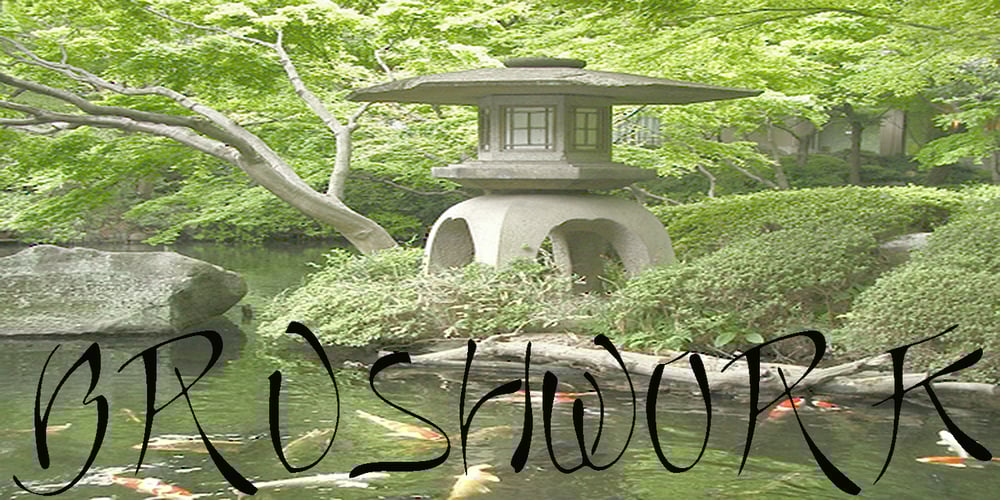
Brushwork Font Family was designed by Jose Jimenez and published by Celebrity Fontz. Brushwork contains 1 styles and family package options. Brushwork is a free-flowing brush font that combines a modern aesthetic with a very unique style. Some have suggested that Brushwork looks like a cross between Roman and Japanese characters but most agree it evokes total freedom of expression. Includes a full set of accented characters to accommodate most of the Romance languages.